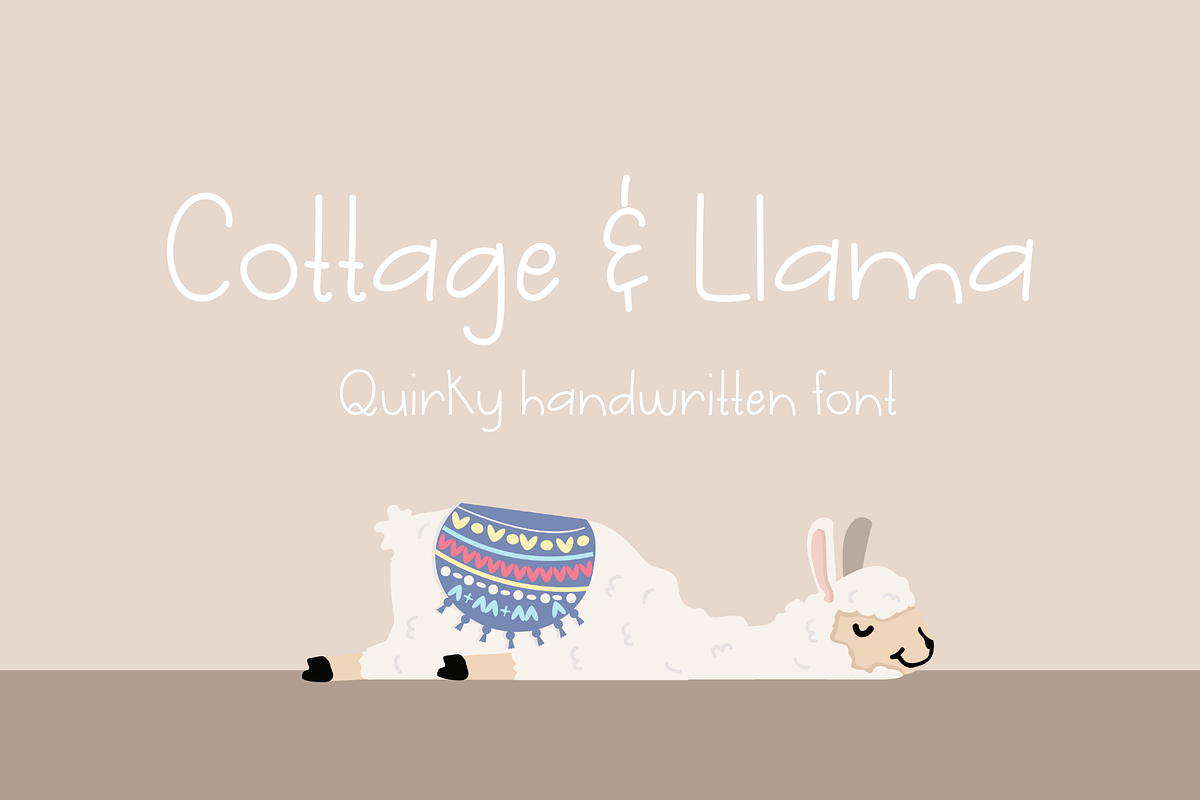
Cottage & Llama Quirky Handwriting Free Download
Cottage & Llama Quirky Handwriting Font Free Download is a charming and whimsical handwritten typeface that brings a touch of fun and personality to your designs. With its playful, irregular letterforms and lively feel, Cottage & Llama is perfect for branding, greeting cards, invitations, social media posts, and other creative projects that need a quirky, approachable vibe.
This font combines the casual elegance of handwritten script with a carefree, joyful style, making it ideal for everything from DIY projects to seasonal branding. Whether you're designing a fun logo, creating personalized stationery, or adding a unique twist to your website, Cottage & Llama brings warmth and creativity to your typography.